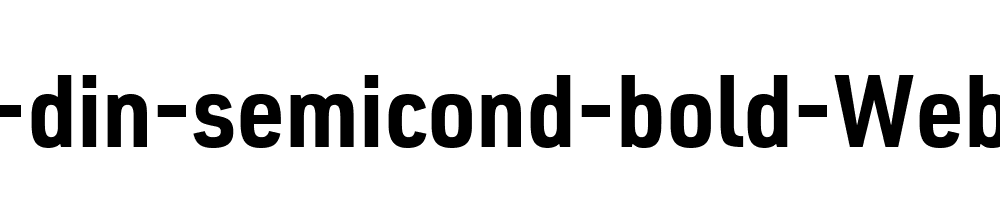
About urw-din-semicond-bold-WebFont
The urw-din-semicond-bold WebFont is a bold, strong typeface that exudes confidence with its straight lines and sharp angles. The font features a moderate aperture and a defined apex, giving it a balanced and structured appearance. The arc of the letters adds a modern touch, while the arms are sturdy and robust. The ascenders are tall and proud, contrasting with the deep descenders that add a touch of flair to the overall design. The font’s axis is vertical and strong, creating a sense of stability and solidity. The beaks and spurs add a unique touch to the characters, making them stand out from the typical sans-serif typeface.
Categorizing the urw-din-semicond-bold WebFont, it falls under the filter of serious yet friendly, striking a balance between professionalism and approachability. The font’s elegance shines through in its clean lines and precise details, making it a versatile choice for a wide range of projects. Its classic yet somewhat progressive design makes it a timeless option that can adapt to various design needs. The urw-din-semicond-bold WebFont is a perfect blend of familiar and daring, offering a hint of creativity without straying too far from traditional typographic norms. It strikes the right balance between being loud and discreet, making it suitable for both attention-grabbing headlines and subtle body text. The font’s warm tones and inviting curves make it a welcoming choice for any design project, adding a touch of personality while maintaining a professional appearance. Overall, the urw-din-semicond-bold WebFont is a versatile and stylish typeface that can elevate any design with its unique characteristics.